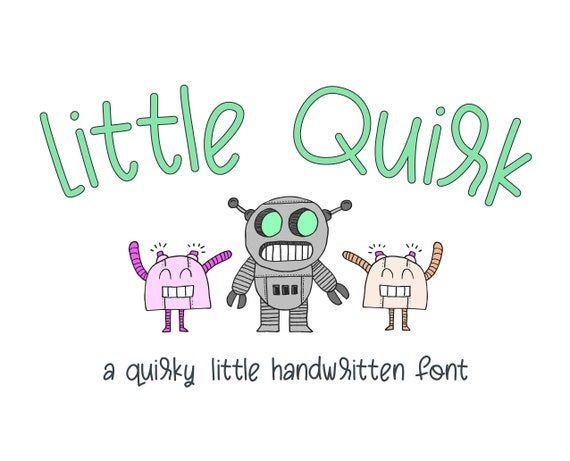
Introducing Little Quirk! This printed, quirky font is perfect for fun craft projects for kids, teachers, classrooms, and more! Little Quirk is a handwritten font with a few quirks for added fun. Little Quirk includes most Western European accented characters.